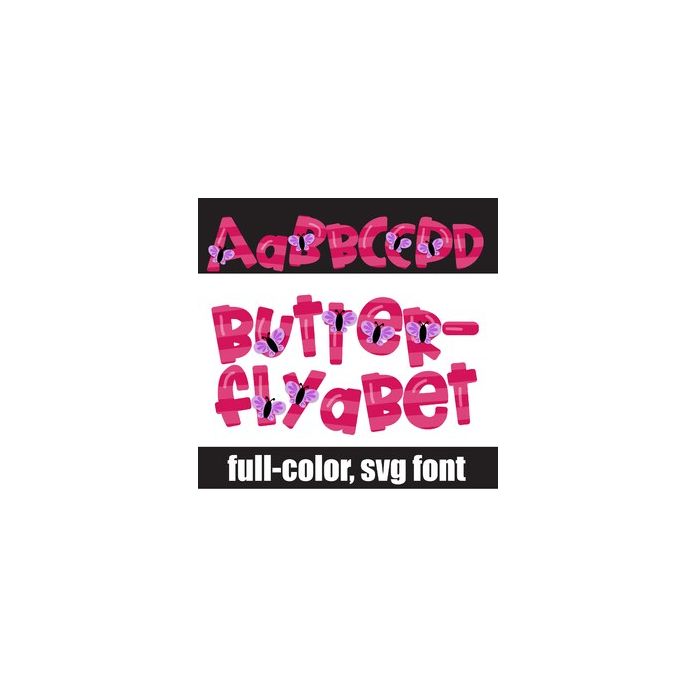
This full-color alphabet features pink striped lettering sporting lavender butterflies. There is an alt case w/ you can access through your system or Silhouette's glyph map.